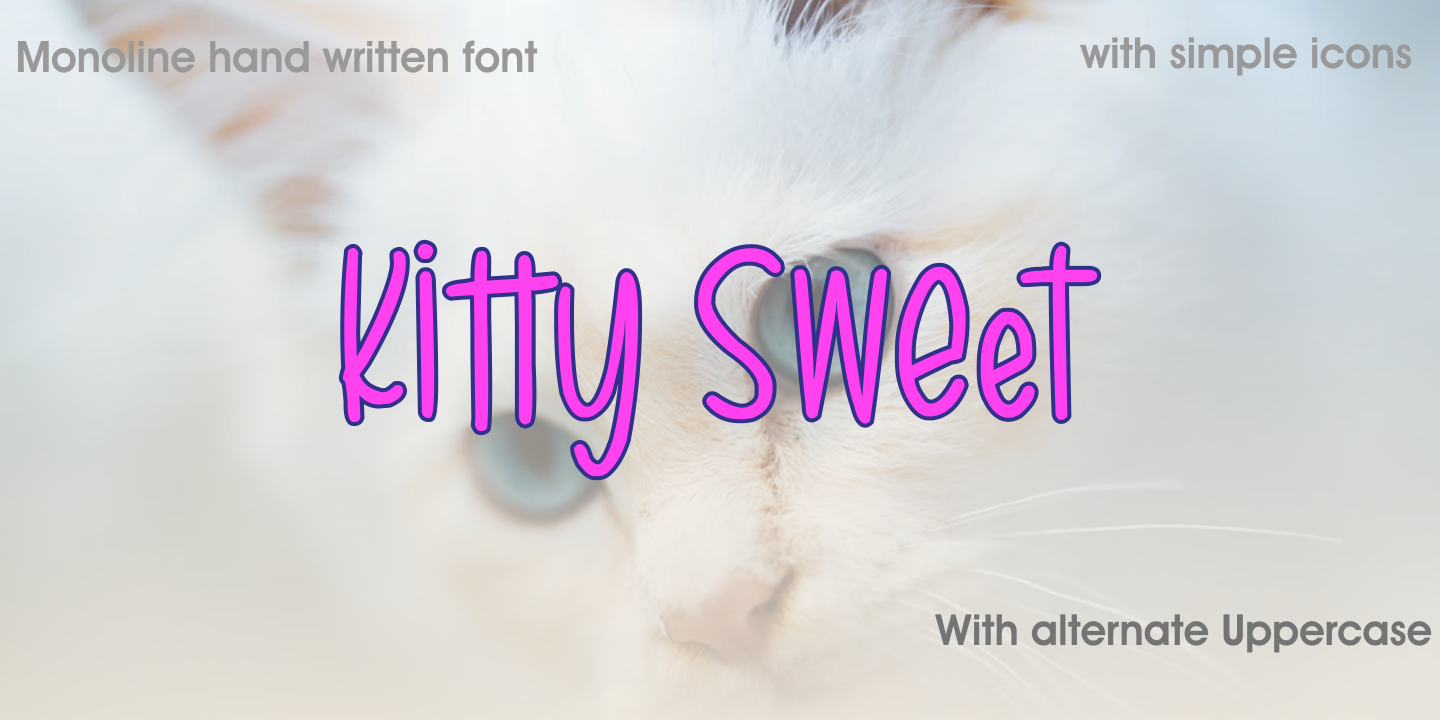
Kitty Sweet Font is perfect for pet store branding, children's book illustrations, cute merchandise designs, bakery and confectionery logos, kawaii-style product packaging, adorable greeting cards, playful nursery decorations, and charming social media graphics.
Kitty Sweet Font is exciting because it captures the irresistible charm and playful sweetness of adorable kittens through its delightfully cute character design that embodies the innocent joy of feline companionship and the heartwarming appeal of kawaii aesthetics. Its adorable styling and sweet appeal make it the perfect choice for brands that want to communicate cuteness, playfulness, and the pure happiness that comes from adorable experiences.
Kitty Sweet Font family includes multiple adorable variations: Kitty Sweet Light, Kitty Sweet Regular, Kitty Sweet Bold, Kitty Sweet Paws, Kitty Sweet Hearts, and Kitty Sweet Whiskers, along with cute decorative elements and kawaii symbols, providing designers with comprehensive tools for creating authentic cute and sweet-themed brand experiences.
When exploring adorable typography solutions, Kitty Sweet Font Free Download stands out as the ultimate choice for designers working on cute and kawaii projects that require genuine sweetness and charming appeal. This delightful typeface embodies the essence of kitten cuteness while offering the versatility needed for modern children's products and kawaii-style marketing communications. The font's sweet character and adorable resonance create immediate connections with audiences who appreciate cuteness and playful charm.
Creative professionals consistently choose Kitty Sweet Font for projects requiring authentic cute sophistication and powerful adorable appeal. Its carefully crafted letterforms feature kitten-inspired influences that work exceptionally well in both large-scale pet store displays and intimate children's product packaging applications. The font's ability to convey sweetness and playful charm while maintaining strong brand recognition makes it invaluable for comprehensive identity systems in the pet care, children's products, and kawaii lifestyle sectors.
Whether you're developing pet store identities, creating children's product marketing materials, or designing cute merchandise promotions, Kitty Sweet Font delivers the authentic adorable character and sweet appeal that resonates with audiences who cherish cuteness and playful experiences. Its charming significance and sweet design ensure your projects capture the irresistible appeal of kitten sweetness while maintaining contemporary professional standards that attract modern families and kawaii culture enthusiasts.